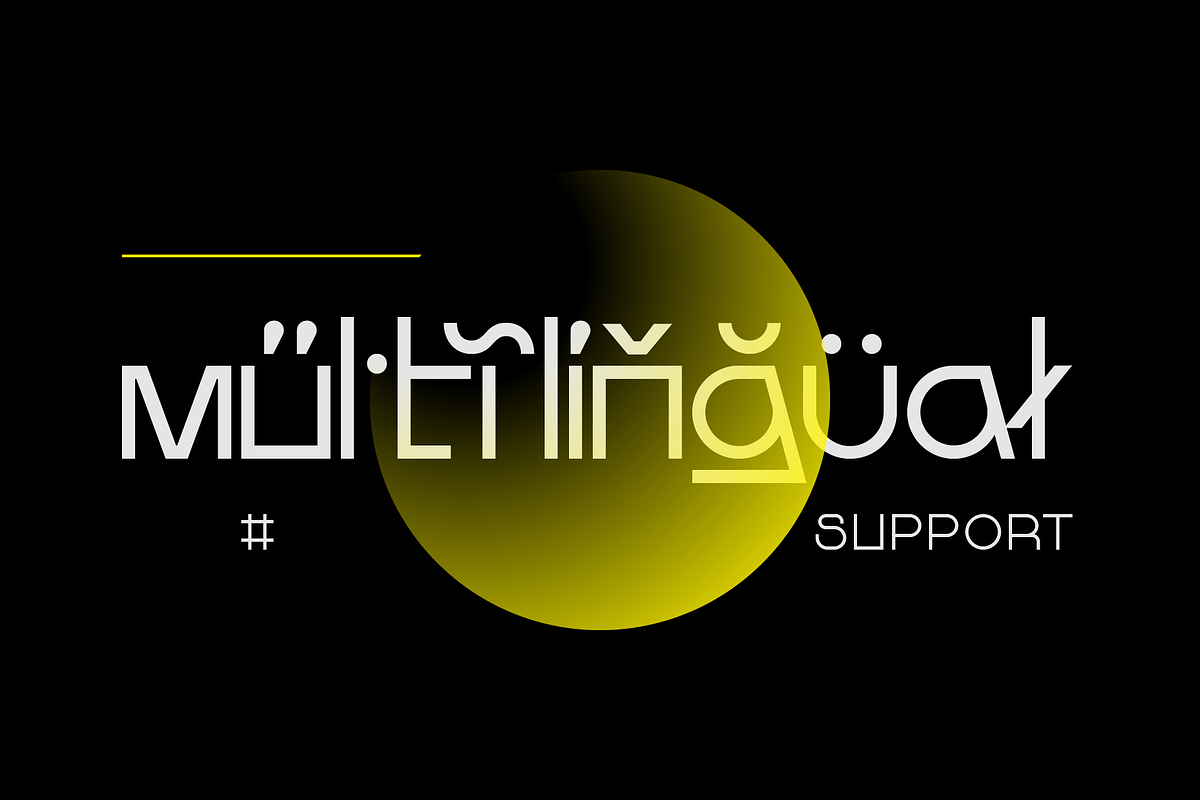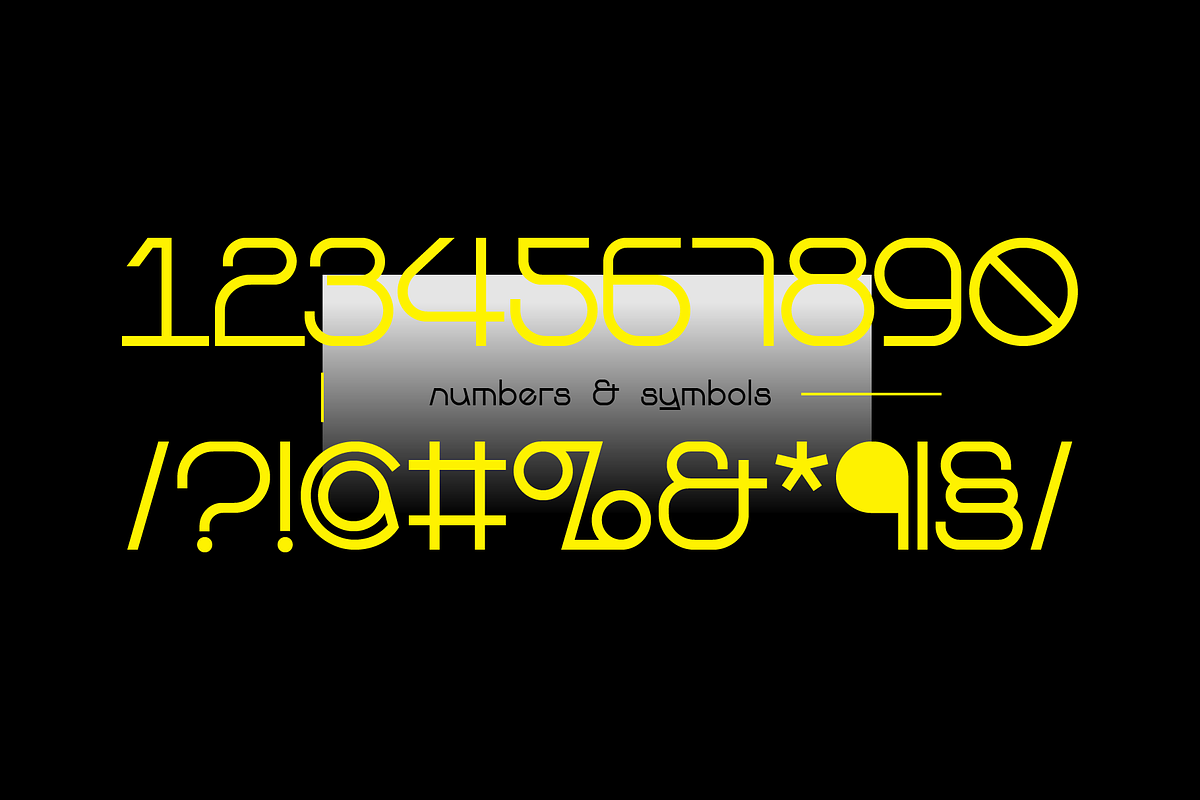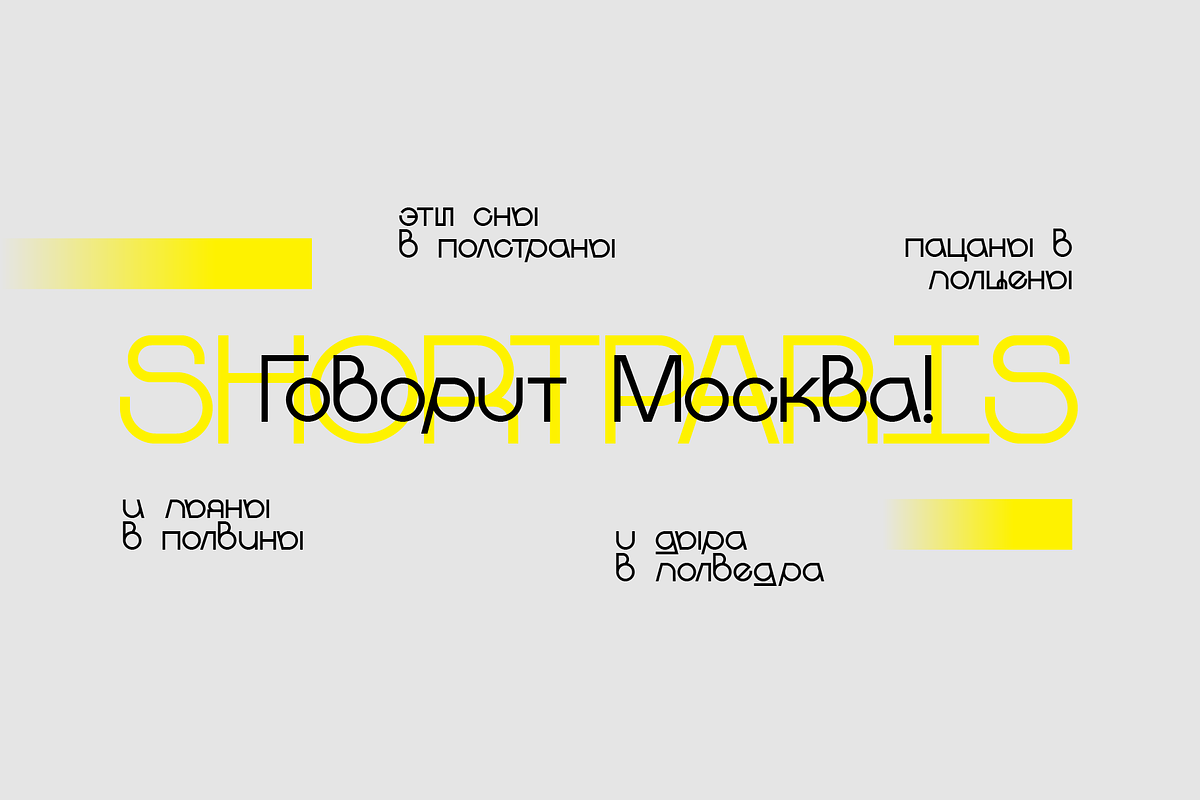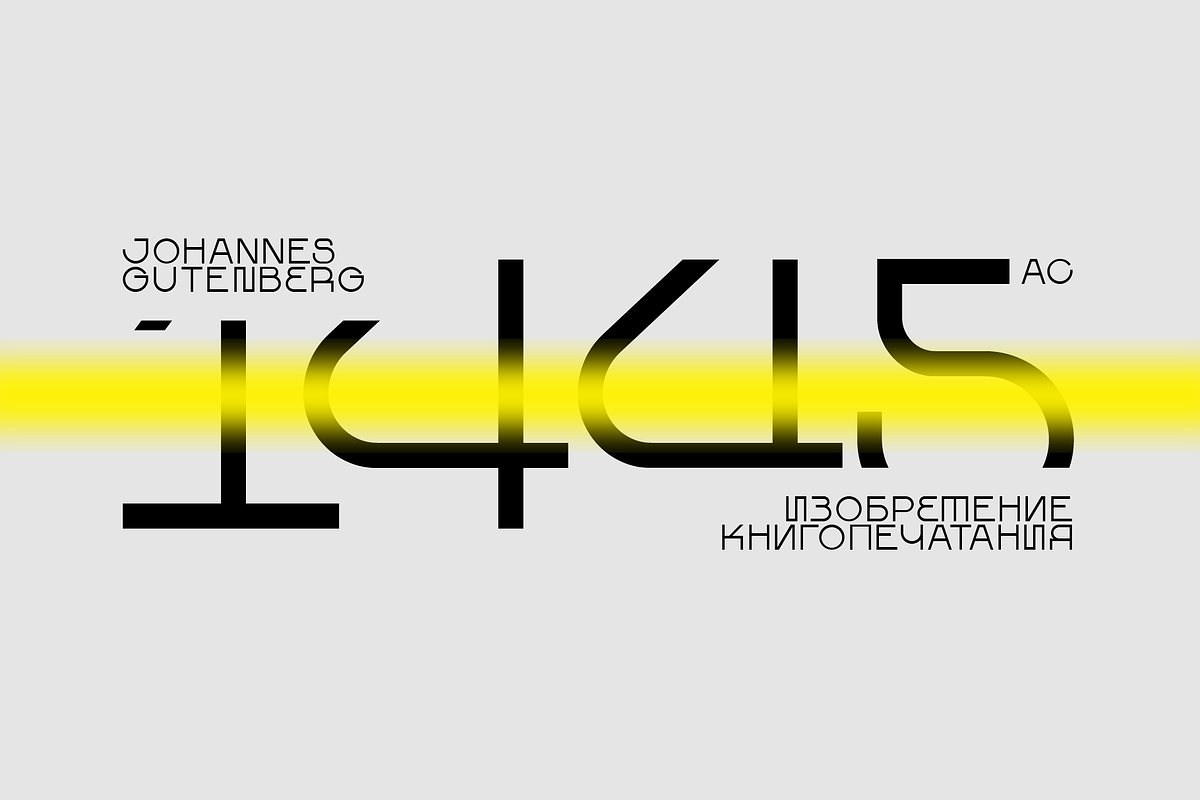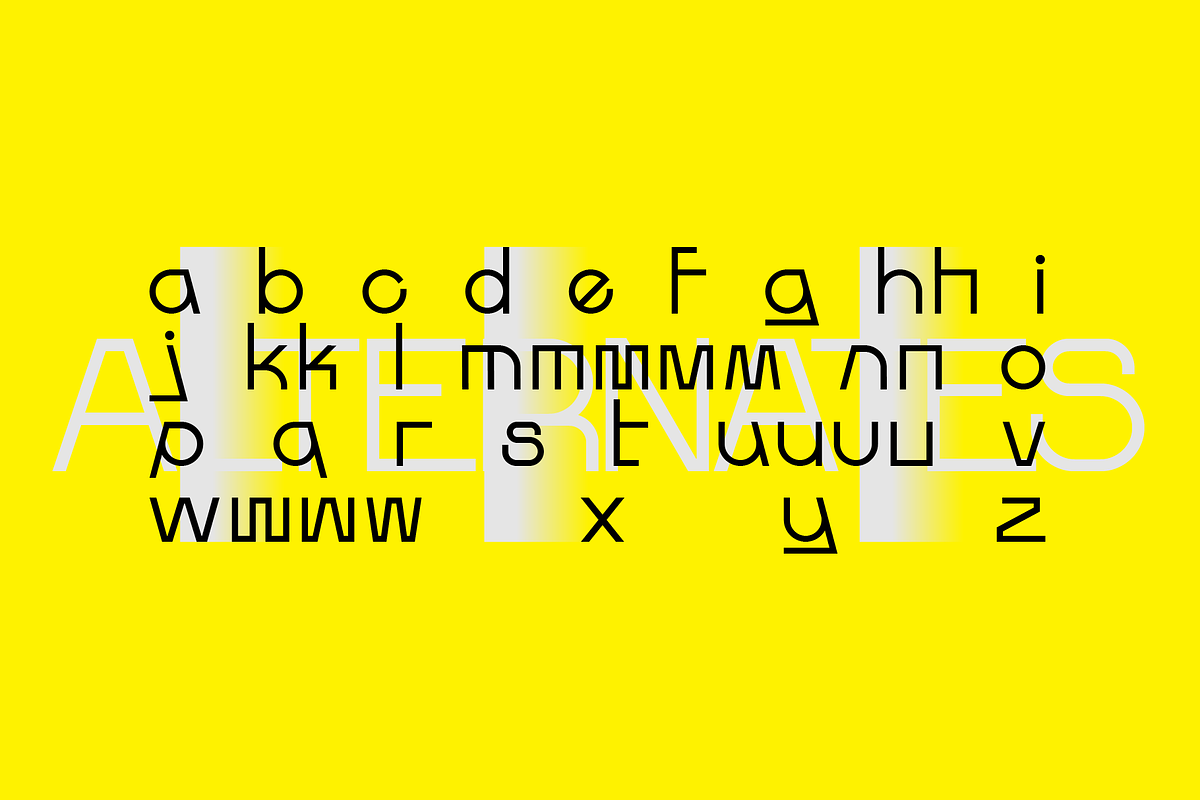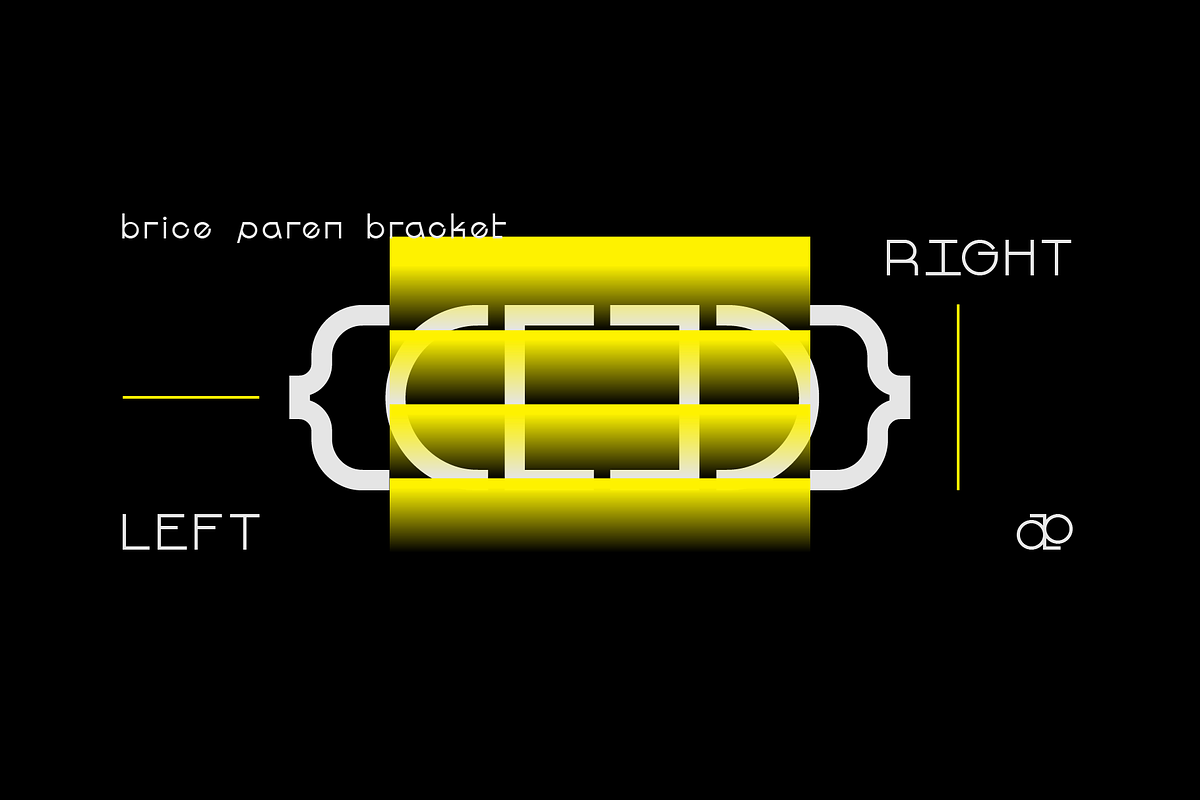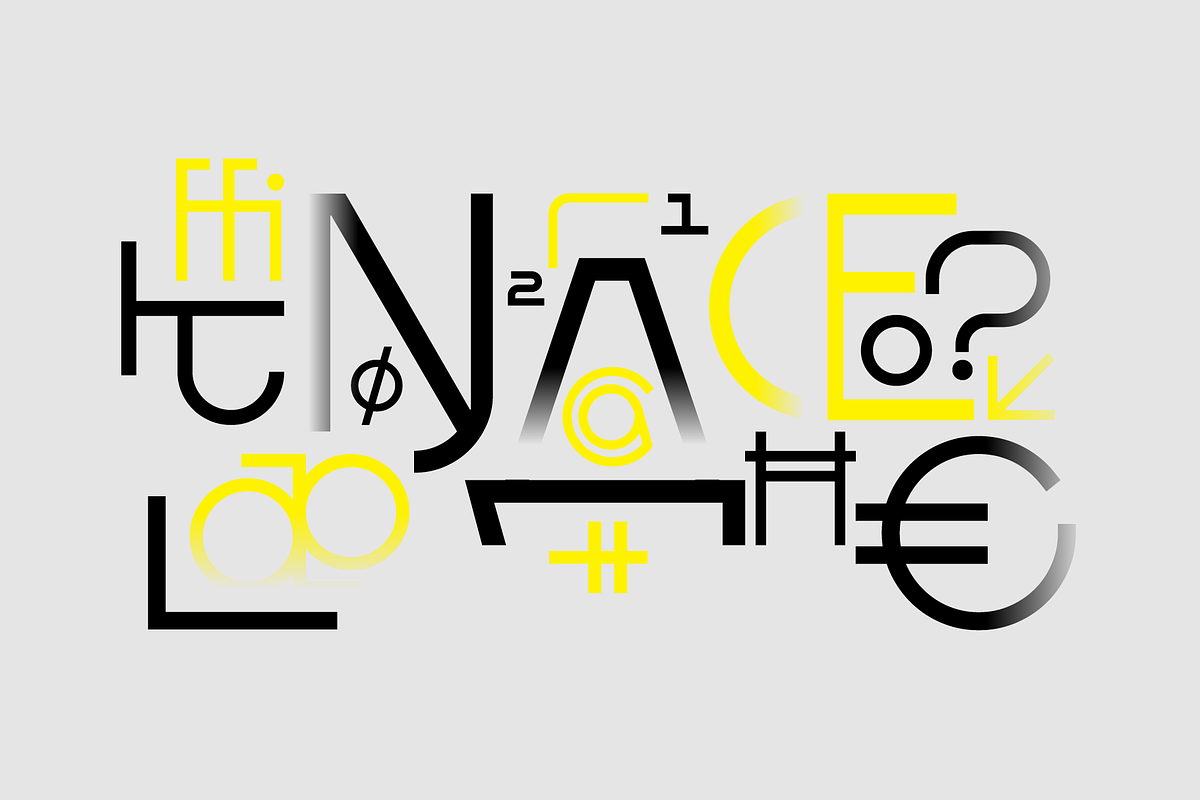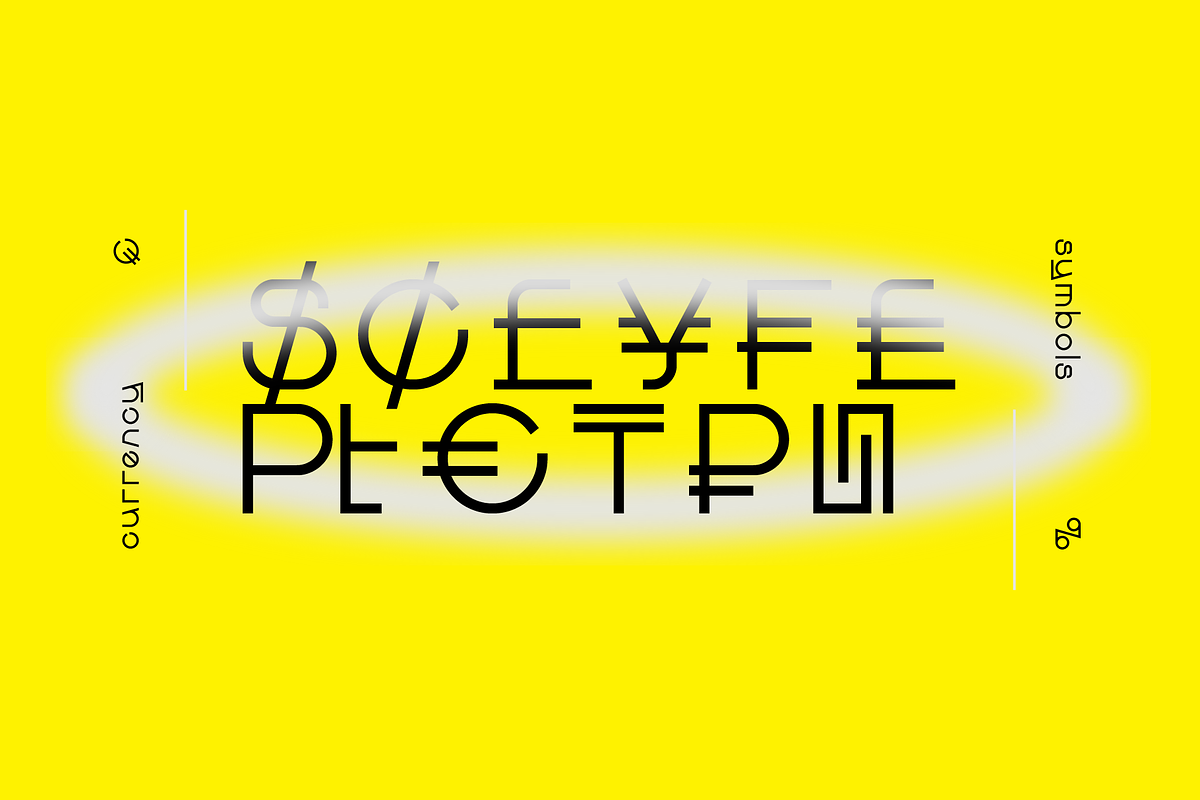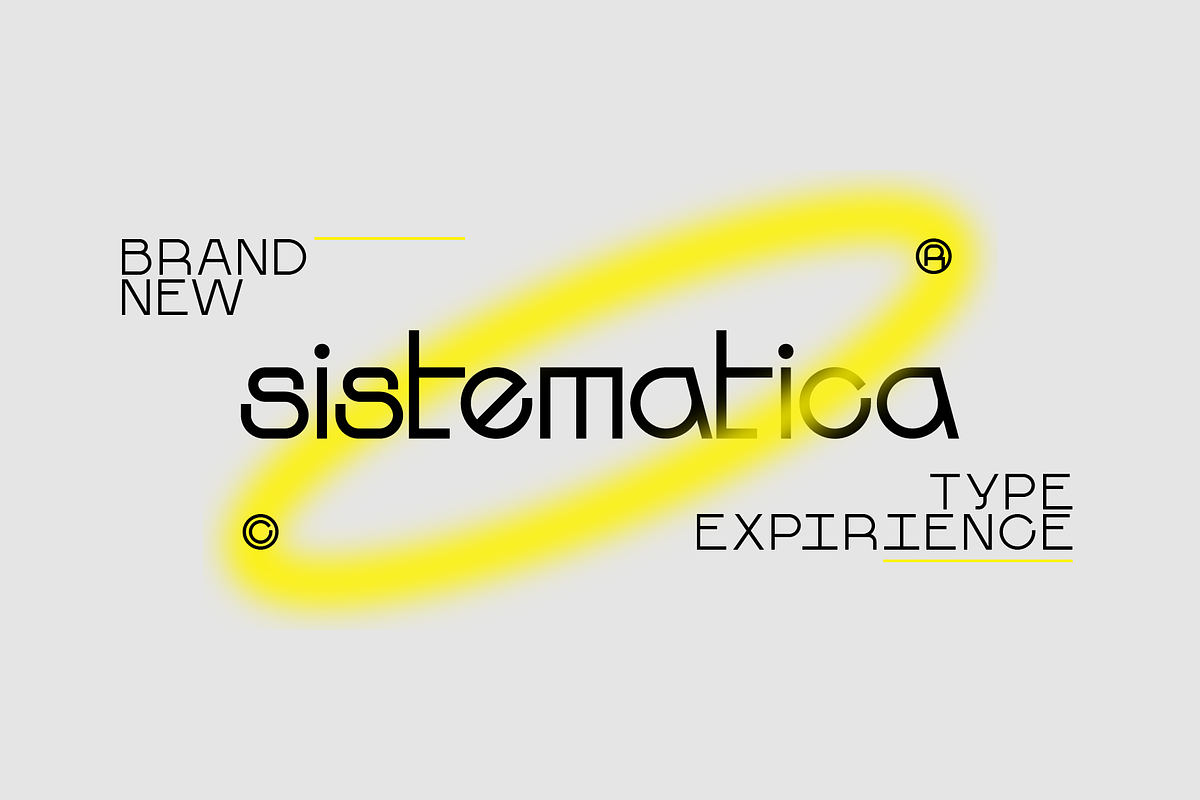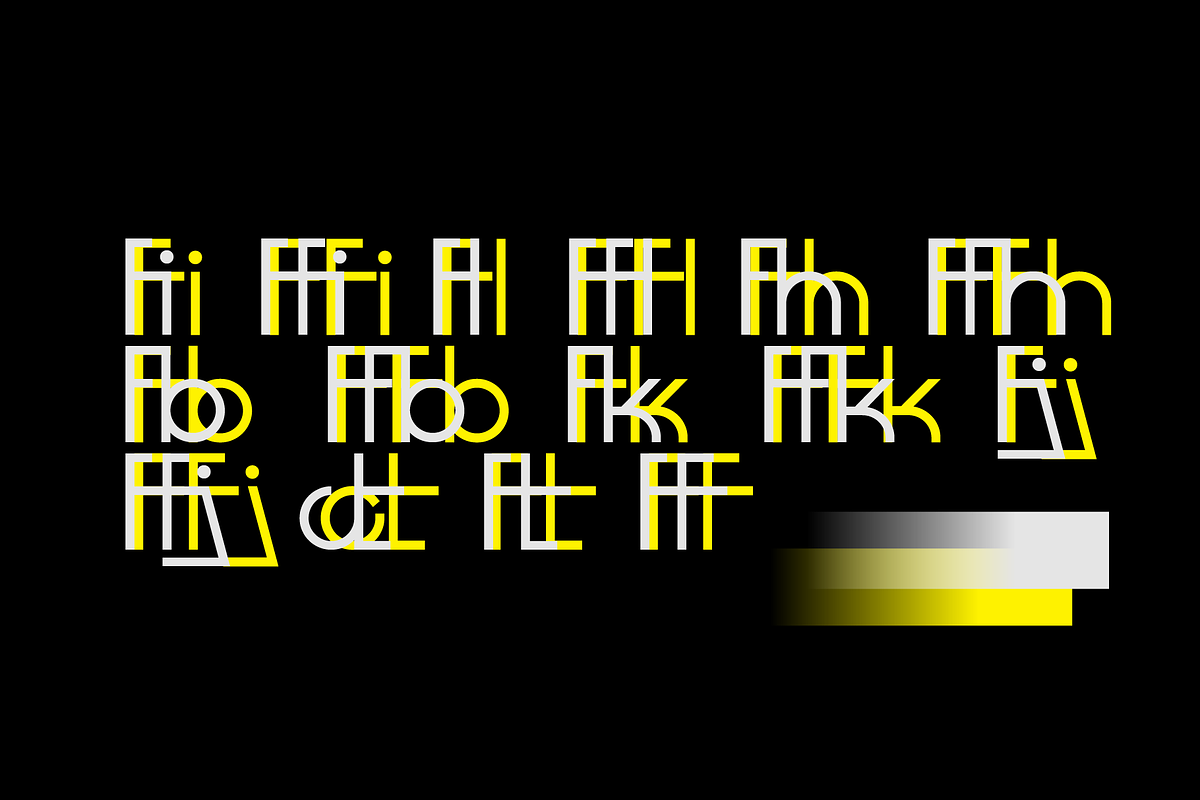
SK Sistematica — Modern Grotesk
SK Sistematica is a unique modular geometric font. It combines the experimental features of the constructivist period and the strict consistency inherent in the grotesques. SK Sistematica is adapted to modern needs and technologies, which allows it to be easily combined with current design trends. The font is suitable for a wide range of applications: from corporate identification to advertising graphics, from web design to typographic design.